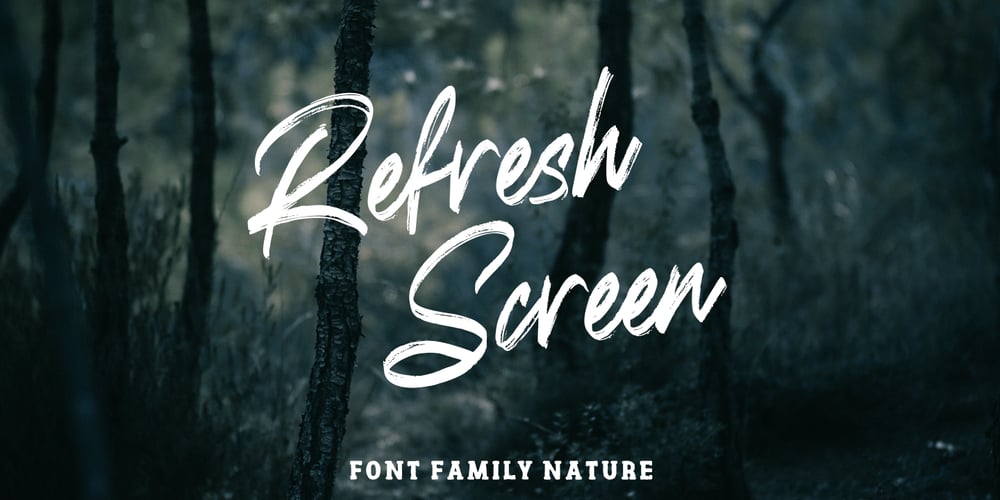
Refresh Screen
Refresh Screen font
Refresh Screen Font Family was designed by Asep Rendi and published by Arendxstudio. Refresh Screen contains 4 styles and family package options. Refresh Screen contains 3 script weights (clean, rough, alternative) and 1 solid display weight. Give your new brand, wedding invitations, and quotes a fresh hand painted look with realistic texture. Refresh Screen was created to give a natural yet stylistic look to your next project! Works Great For: Logos Labels Signage Signature Logo Title Website Etsy Product Quotes Instagram Packaging Business Card & More